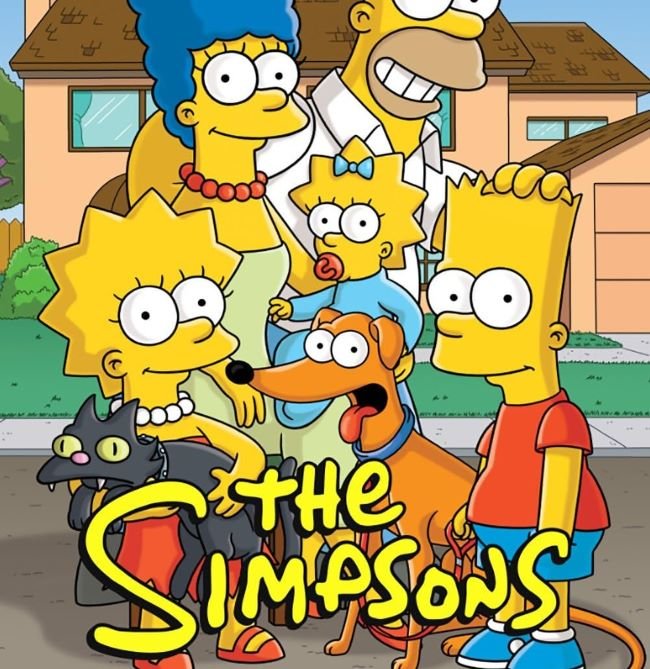
The Simpsons font — designed by Sharkshock — is a masterclass in productive imperfection: bold, rounded font with deliberately uneven baselines and hand-drawn character that feel spontaneous rather than engineered, communicating the same warmth, irreverence, and creative recklessness that Matt Groening’s animated series has brought to Fox’s Sunday night schedule since 1989.
The typography’s genius is in what it refuses — it refuses to be polished, refuses to conform to a consistent baseline, refuses the kind of corporate tidiness that would suggest a show with institutional ambitions. Instead it looks like something sketched by a reasonably talented person who was also laughing at their own joke at the time.
The freely available Simpsons Font brings this cheerfully imperfect energy to creative projects.